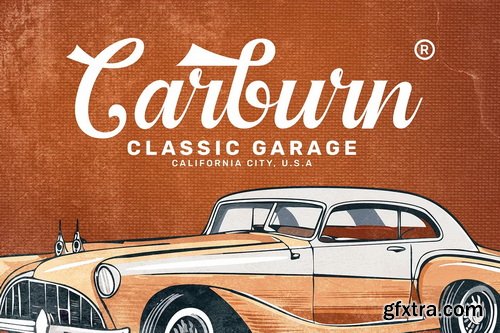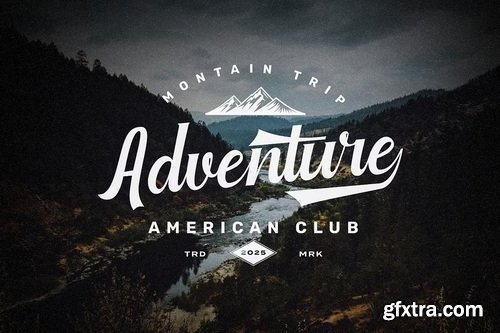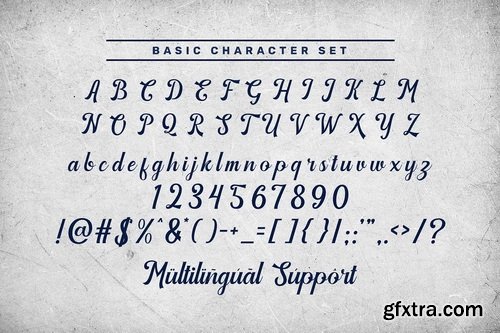
CreativeMarket - Montell - Vintage Script
Montell Vintage Script is a beautifully crafted script font inspired by classic calligraphy. With its flowing lines and intricate details, this font adds a touch of vintage charm to any design. Perfect for creating elegant logos, invitations, and other design projects that require a sophisticated and timeless aesthetic.